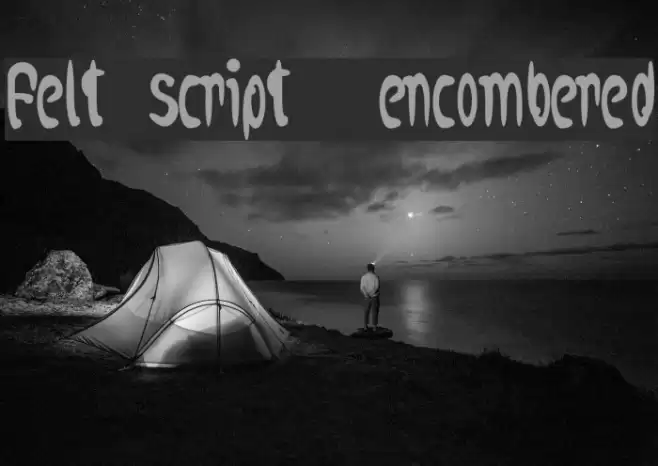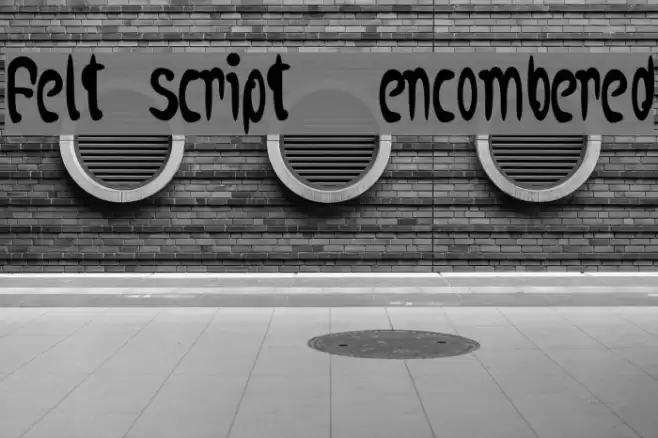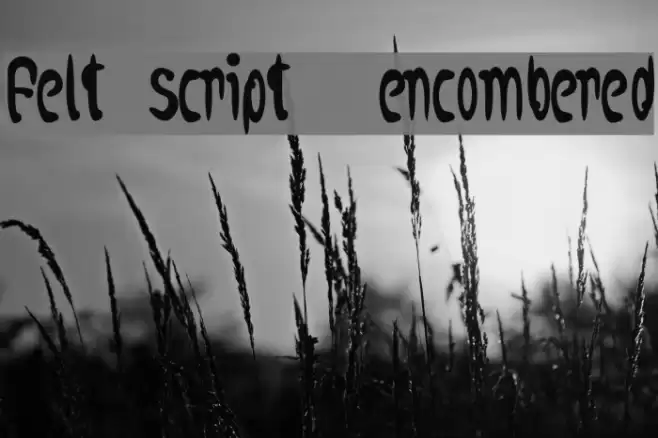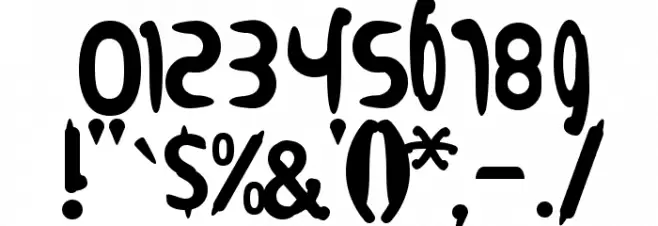
felt script encombered Font
felt script encombered Description
This font features a playful and dynamic style with a handwritten appearance. The characters are bold and slightly irregular, giving them a lively and energetic feel. The uppercase letters are tall and robust, while the lowercase letters maintain a consistent flow with rounded edges. Numbers and special characters follow the same whimsical style, making the font suitable for creative and informal projects. The overall look is reminiscent of a casual script, yet with a unique twist that sets it apart from traditional handwritten fonts.
A playful, bold handwritten font with a lively and dynamic style from Uncategorized fonts.
- Proposed Projects: Ideal for children's books, playful branding, greeting cards, and creative posters.